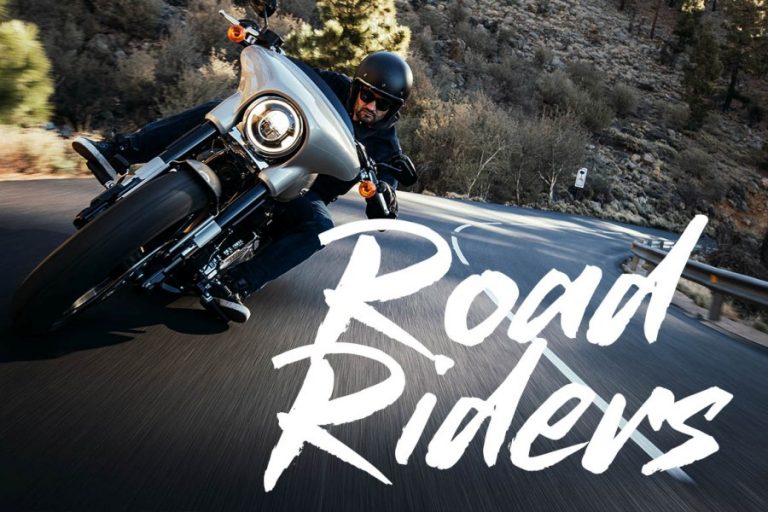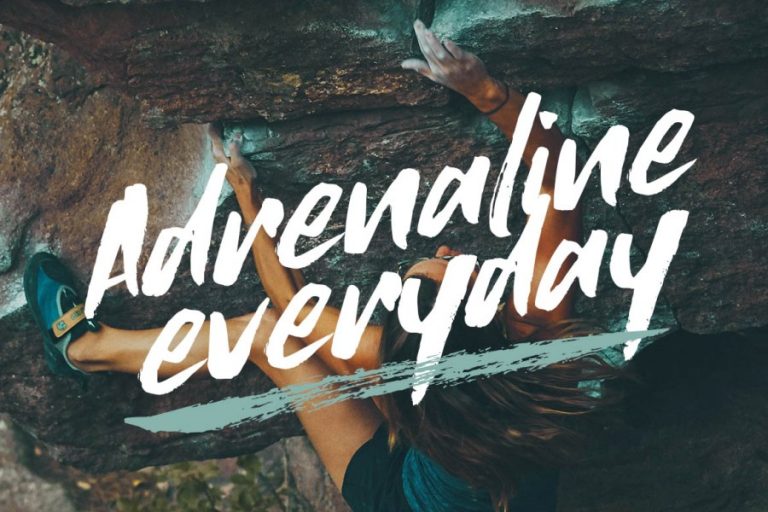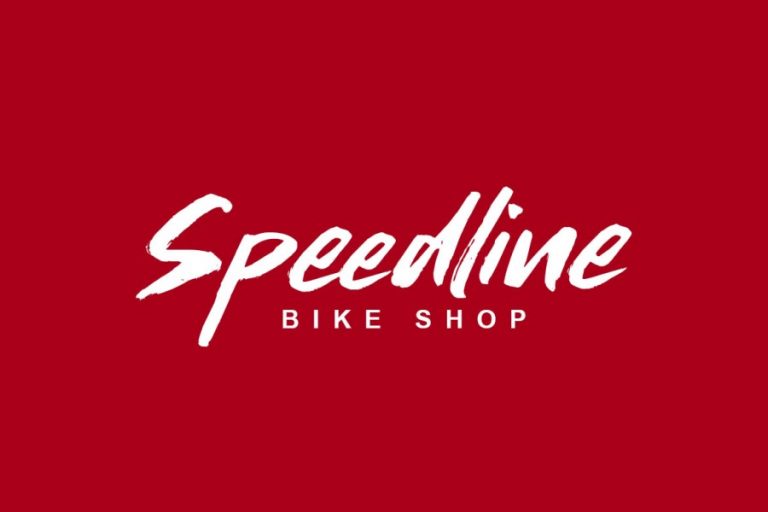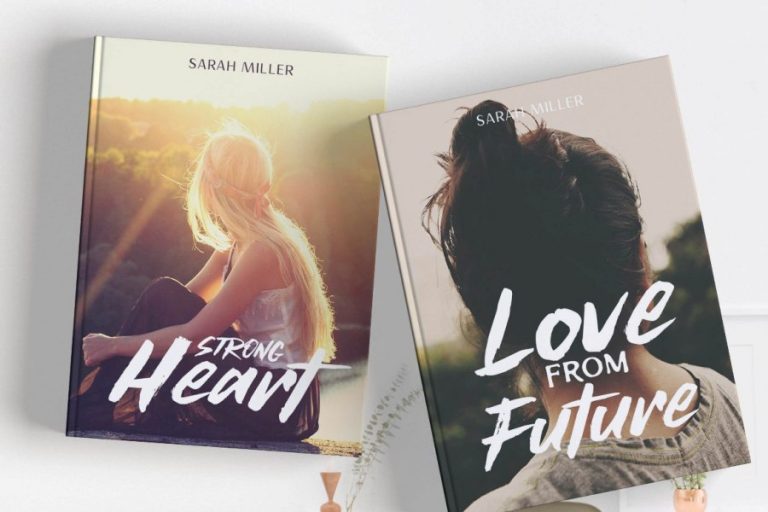
Willmad Friday
This is cool brush font. Nowdays brushfont is most wanted font , specially in envato element. This font is perfect for any advertisement purpose, clothing, apparel, logo, and package